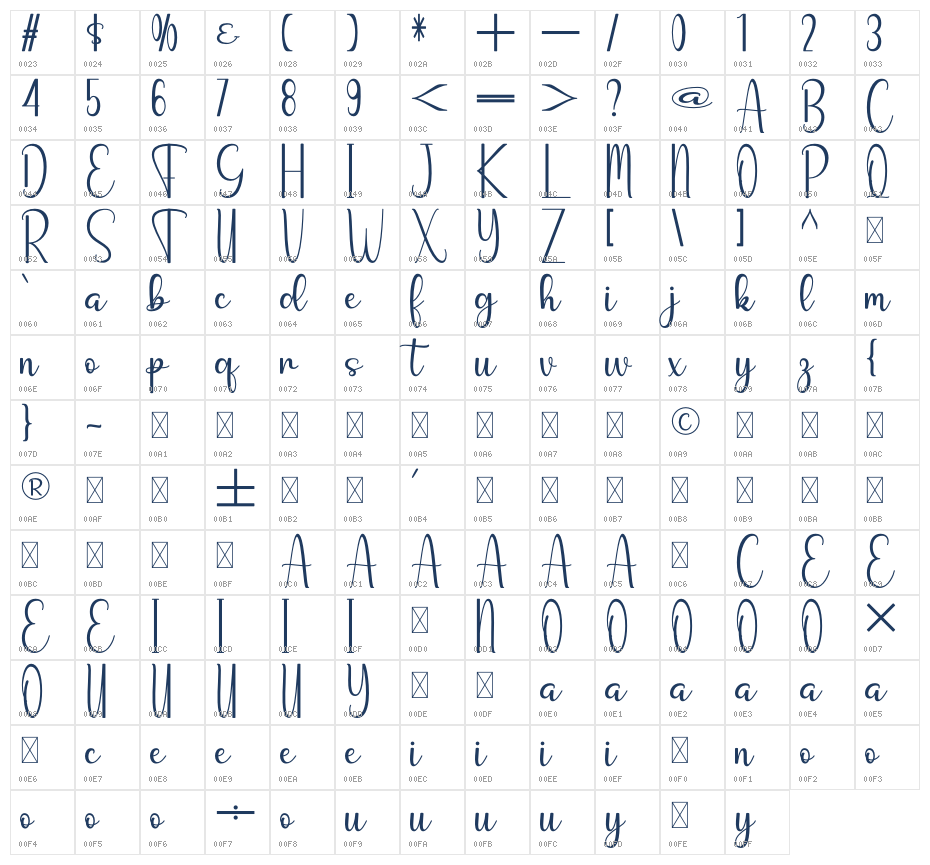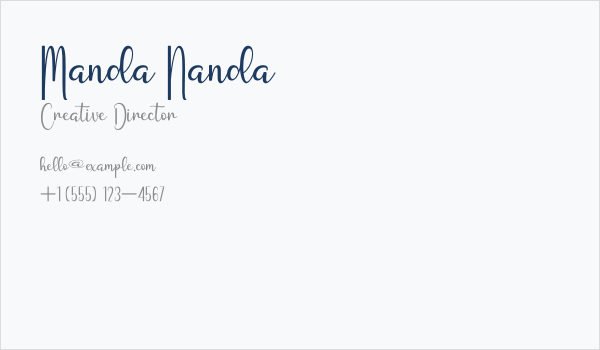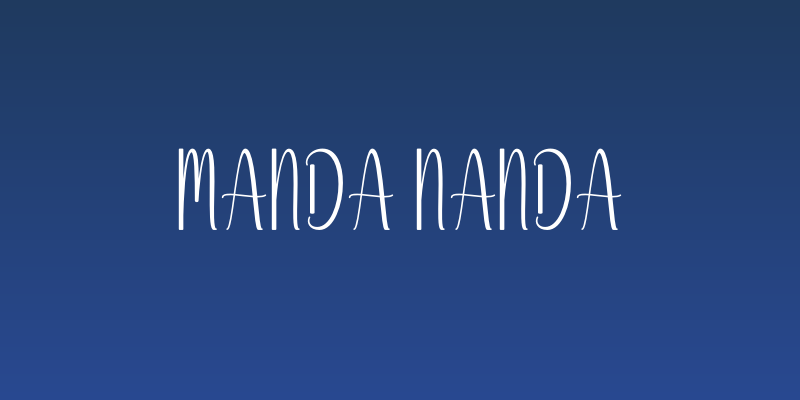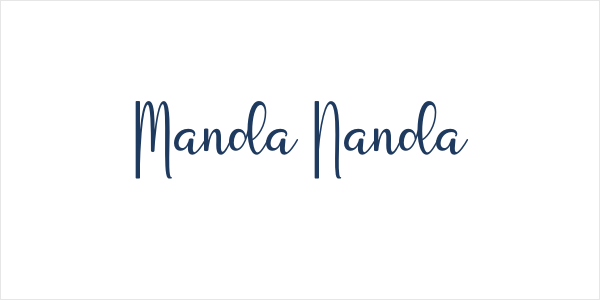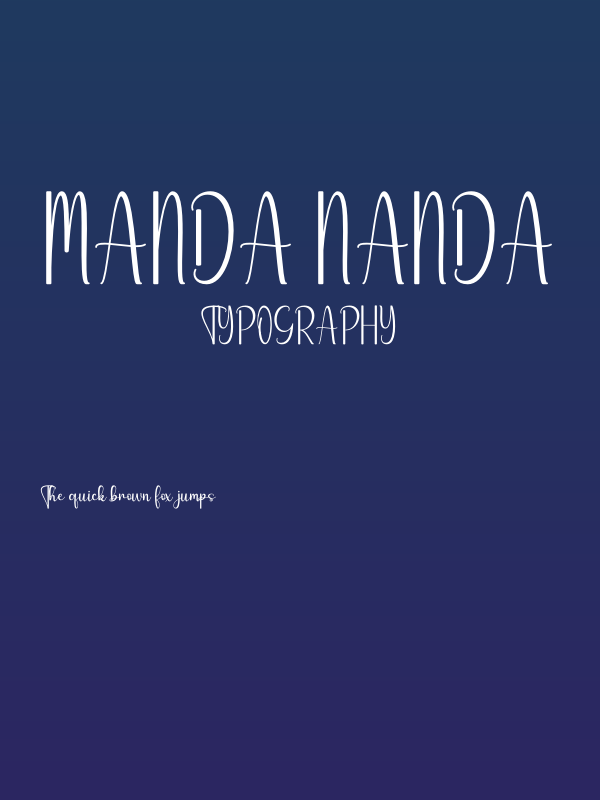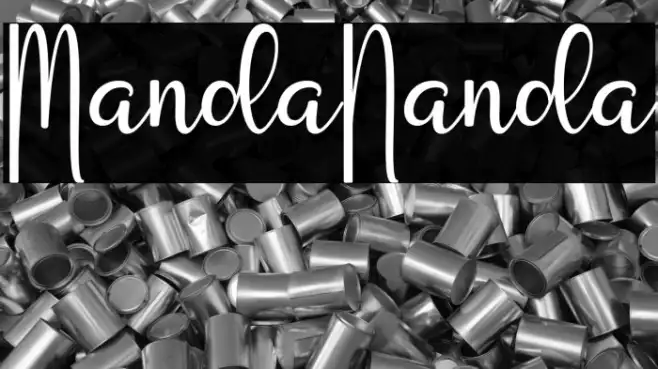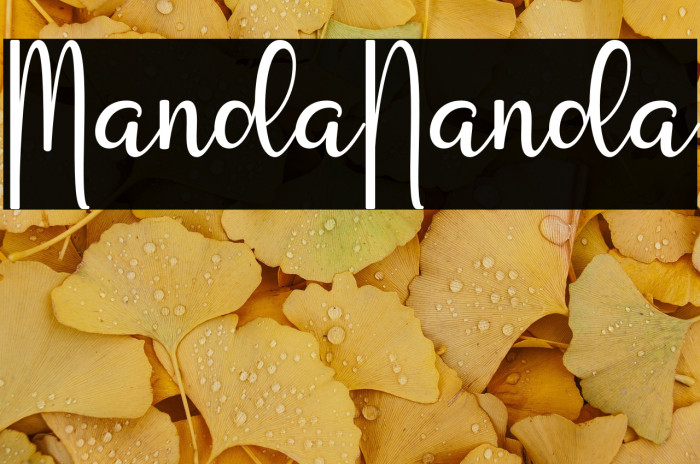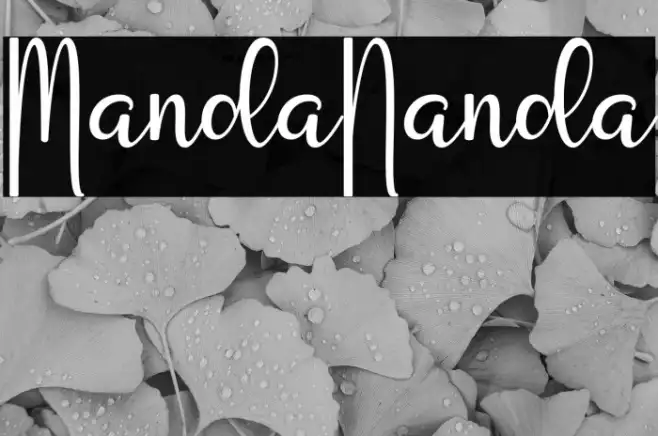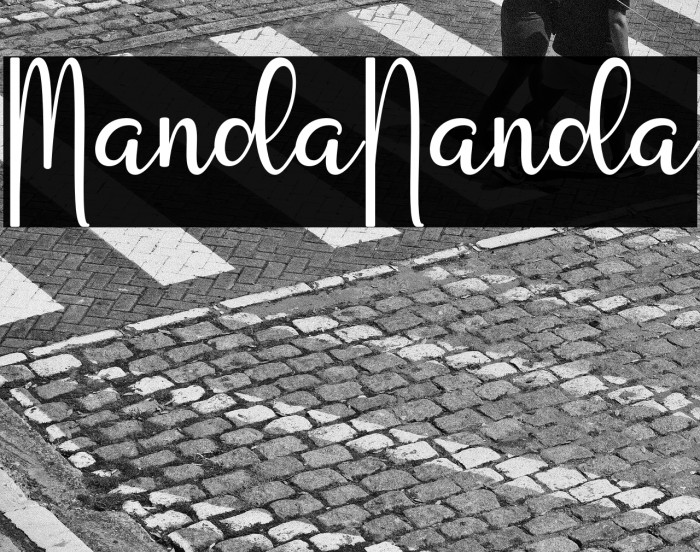
Manda Nanda Font
Manda Nanda Description
A decorative, handwritten script font with a playful and elegant style, featuring tall, thin characters with varying stroke widths and whimsical curves.
| Overall Style | Playful, Elegant, Handwritten |
| Use Case | Invitations, Greeting Cards, Branding, Logos, Packaging |